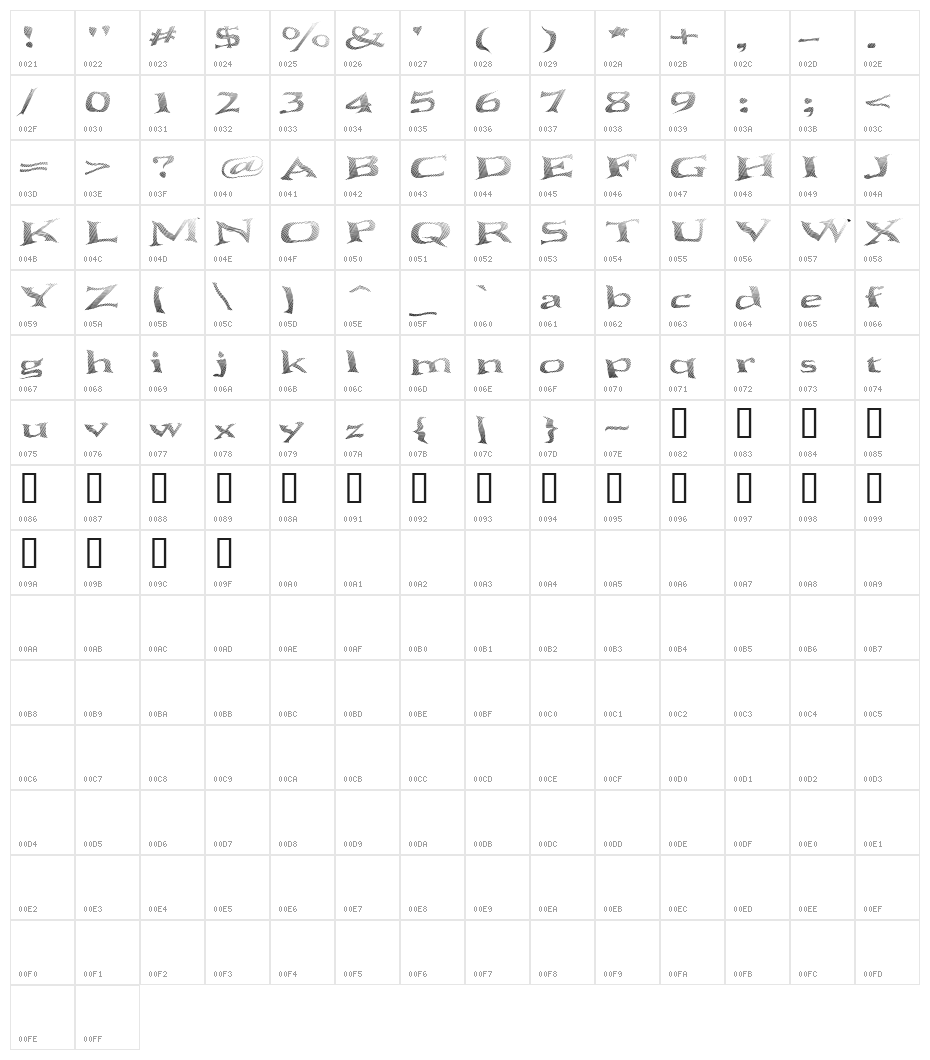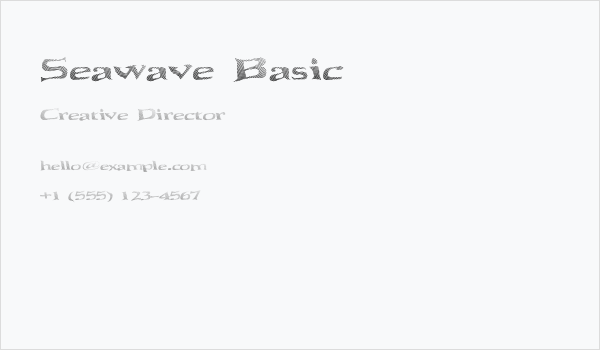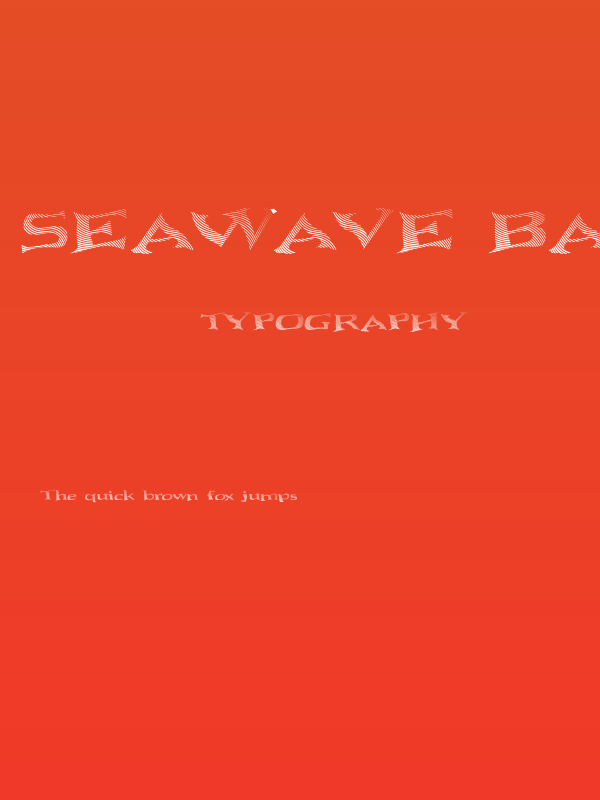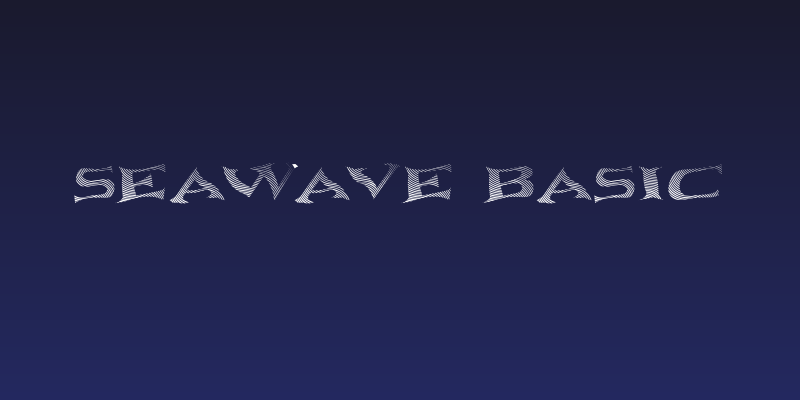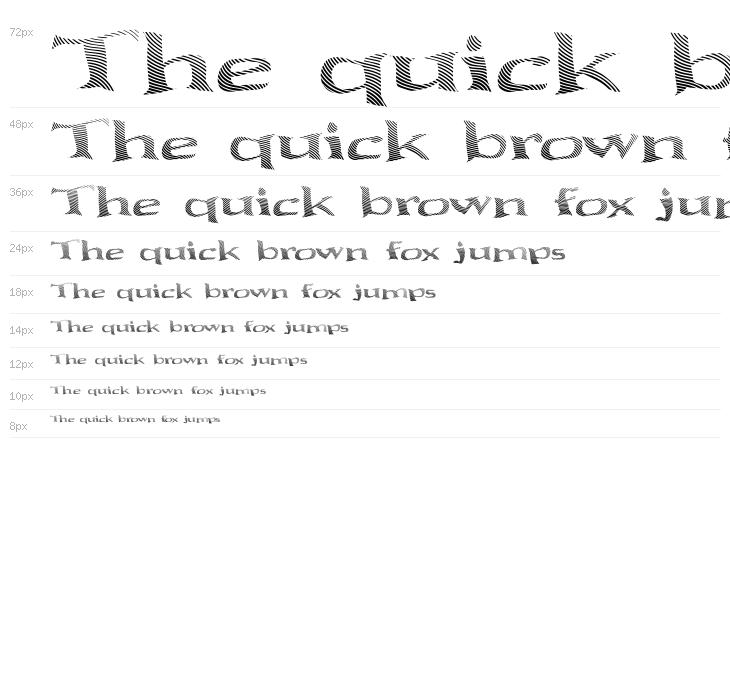
Seawave Basic Font
Seawave Basic Description
This font features a unique and dynamic design with a wavy, textured appearance that mimics the movement of ocean waves. The characters are crafted with a series of parallel lines that create a sense of motion and fluidity. Each letter and number is distinct, with sharp edges and a slightly italicized form, giving it a modern and artistic flair. The font maintains a consistent style across uppercase, lowercase, numbers, and special characters, making it versatile for various design needs. Its decorative nature makes it stand out, ideal for projects that require a bold and creative touch.
| Proposed Projects | Ideal for creative projects such as posters, album covers, branding, and event invitations where a bold and artistic statement is desired. |